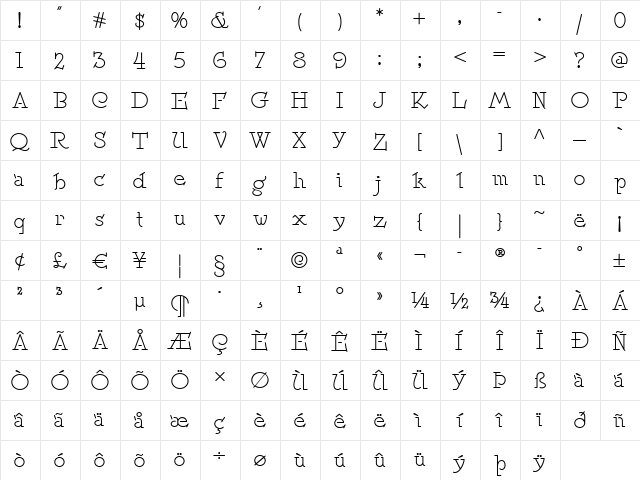
SpeedballNo2NF Regular
Design Context for SpeedballNo2NF Typeface
SpeedballNo2NF offers clean, dependable letterforms without strong stylistic allegiance, making it a practical choice for designers who need flexibility.
Pro Tip: Use SpeedballNo2NF in both headline and body roles to test its range before committing to a single application.